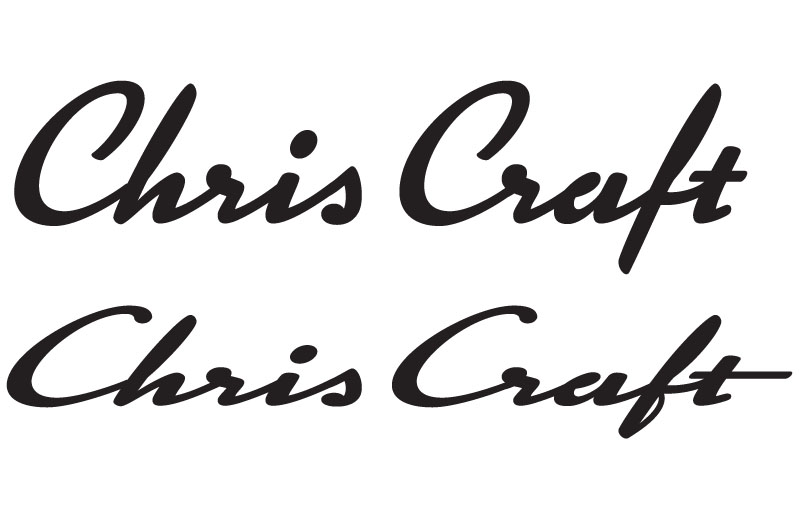
Chris Craft boat font?
can anyone help id this font or one close? i will be using for the "port of" portion of a boat name for a 410 Chris Craft Commander, the customer wants it to match.
I think that the closest thing you might find is an obscure font Called TRAFTON REGULAR HEAVIER, I believe created by Dan Solo. It has some of the same characteristics yet is still so far off and much lighter in weight. I have heard that, according to Chris-Craft's marketing director, there is no established typeface or font, although they have given their blessing for anyone who would like to create an entire font based on the logo....still non are known of. We had a very large project about 2 years ago that use of that typeface/font was requested to be used. An alternate was eventually decided on and approved.
sorta close is Kinescope at Fontbros.com
the top is stock, the bottom is 5 minutes of modification....